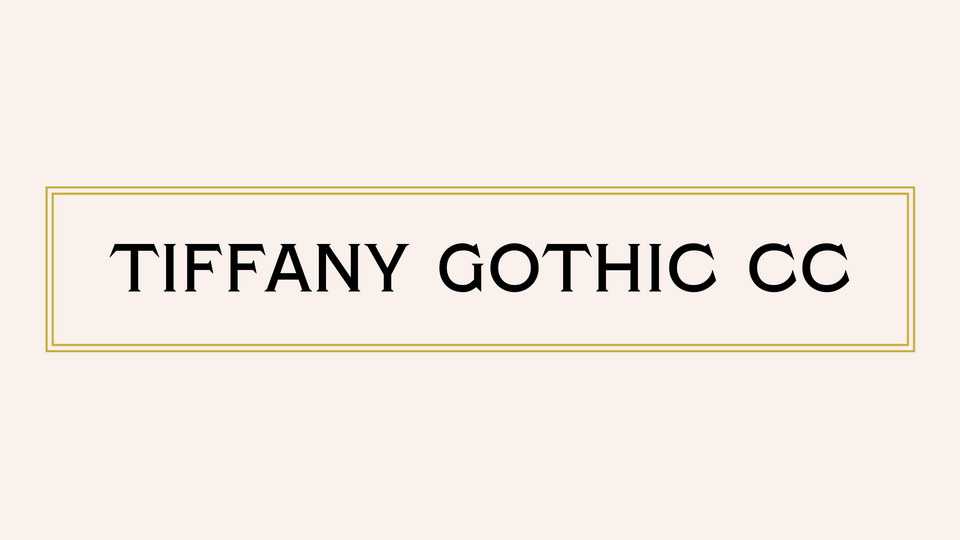
Download Tiffany Gothic CC font, a serif typeface, revival of Tiffany Gothic by American Type Founders. This typeface has a lot in common with its more famous relative, Copperplate Gothic,
Designer: Indestructible Type